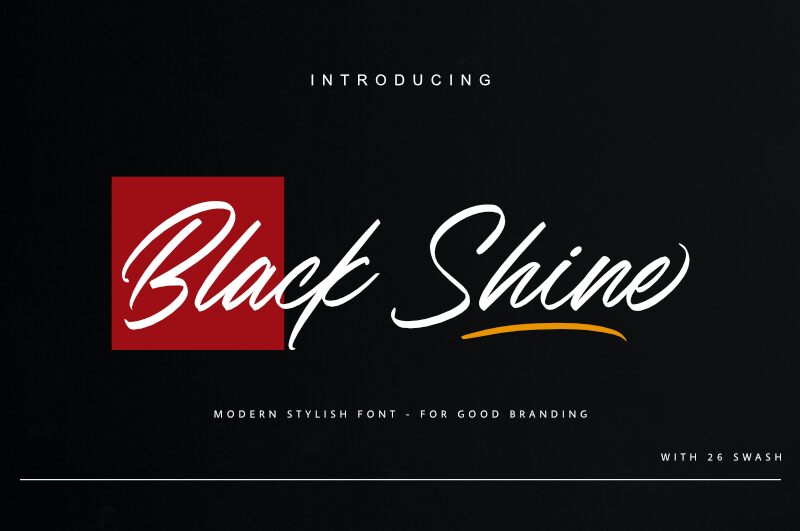
Black Shine, designed by Halymunt Studio, is a handwritten font that exudes a casual elegance and charm. Its light weight and condensed width create a delicate yet assertive presence on the page, making it versatile for various creative endeavors. The fluidity of Black Shine’s strokes suggests a personal touch, ideal for projects that require an intimate or artisanal feel.
The aesthetic appeal of Black Shine lies in its ability to blend modern minimalism with the warmth of traditional handwriting. This font could effortlessly enhance branding materials, wedding invitations, or bespoke stationery. It stands as a testament to the designer's ability to capture the essence of handwritten expression while maintaining readability and style.
Black Shine's potential is boundless-its unique characteristics promising to add sophistication and personality wherever it's employed.